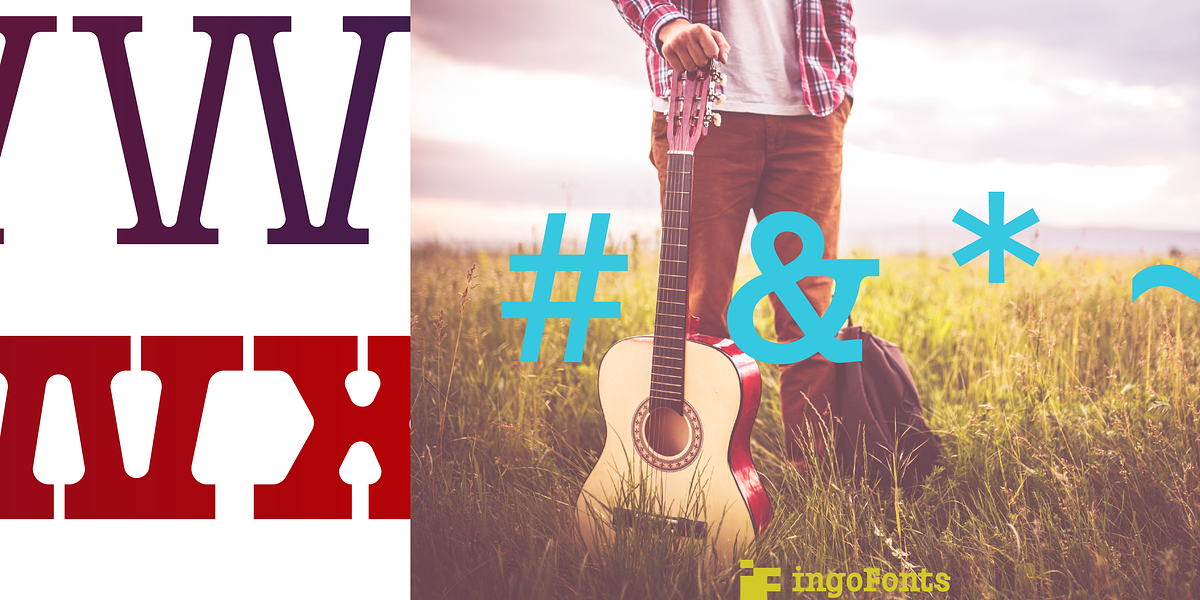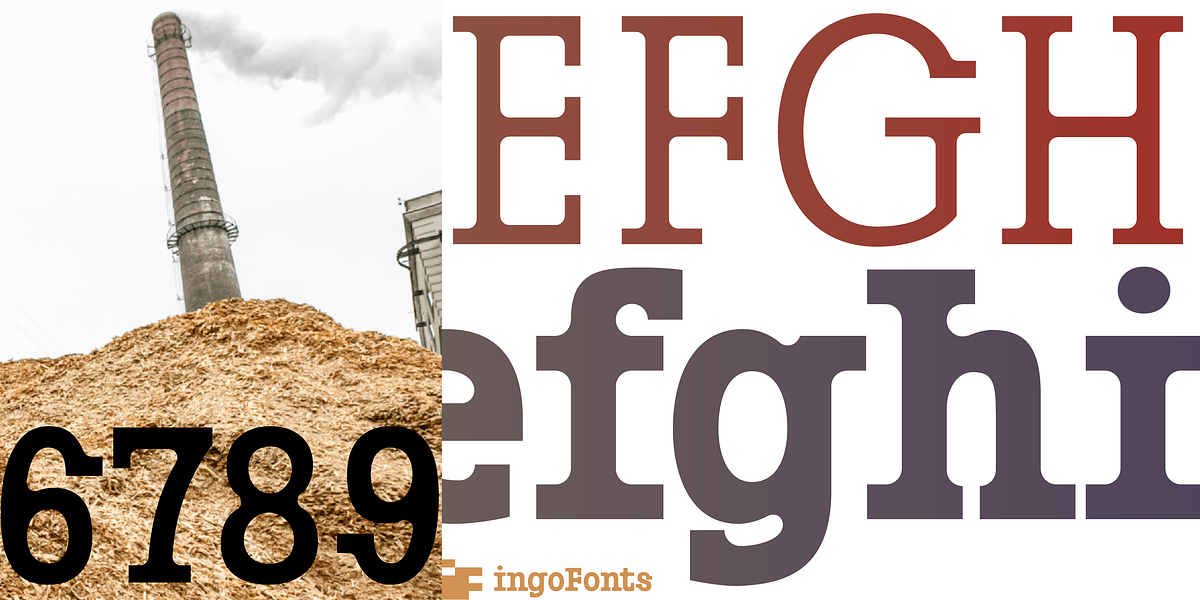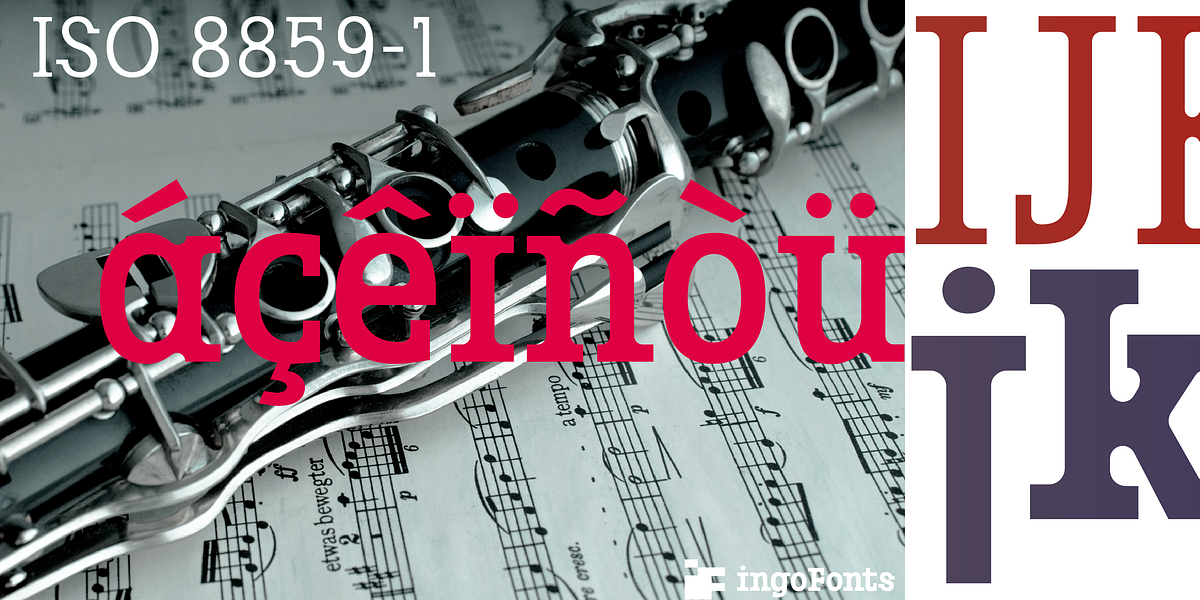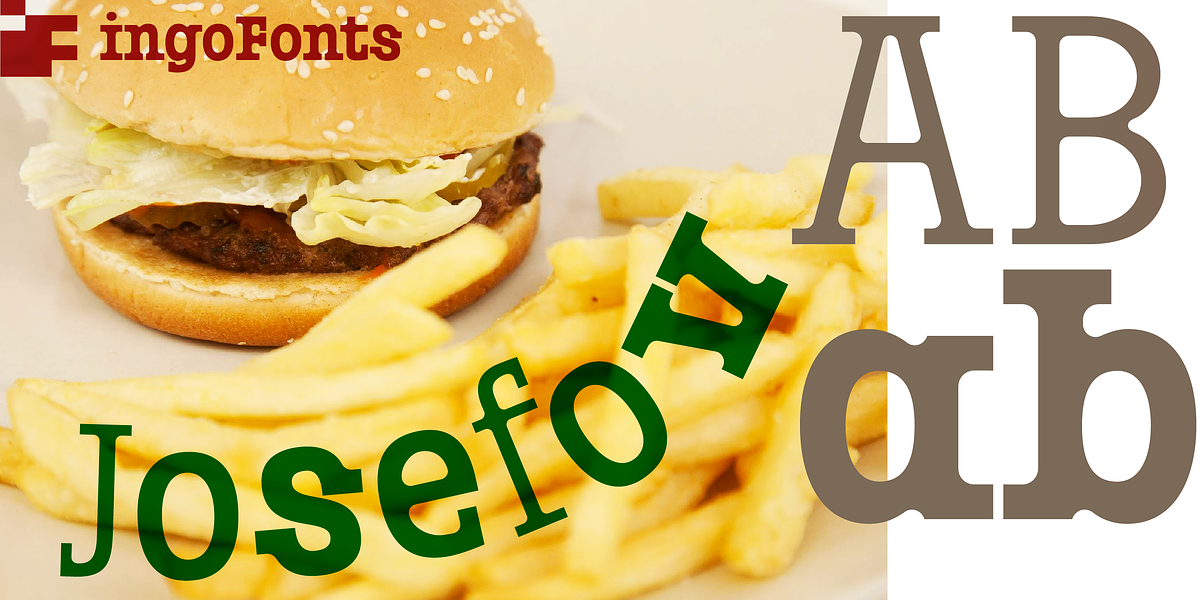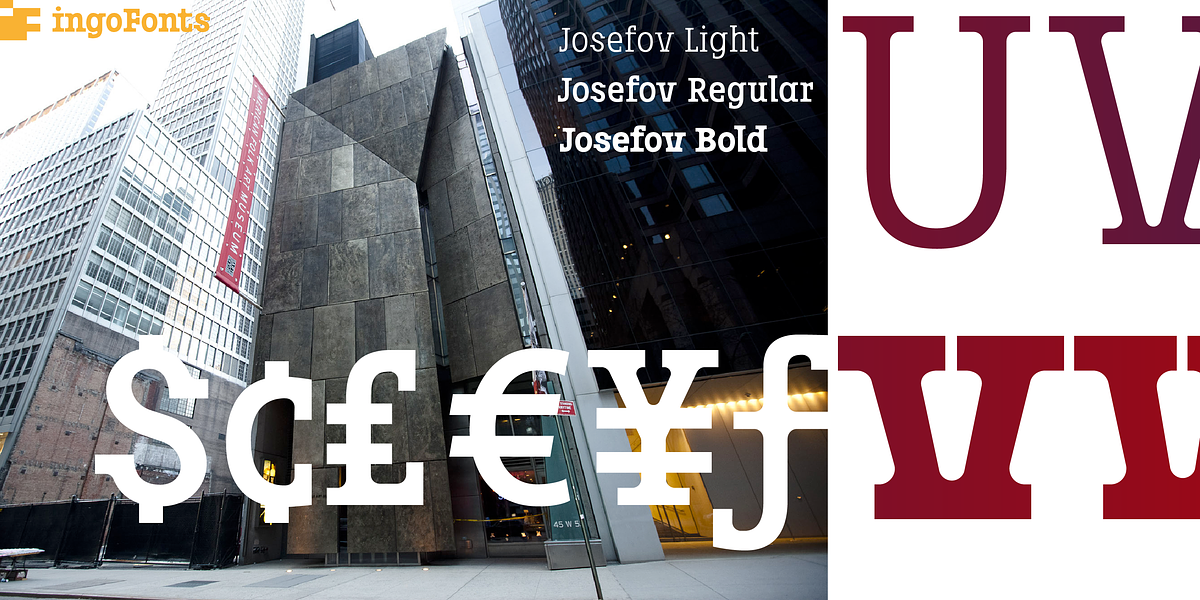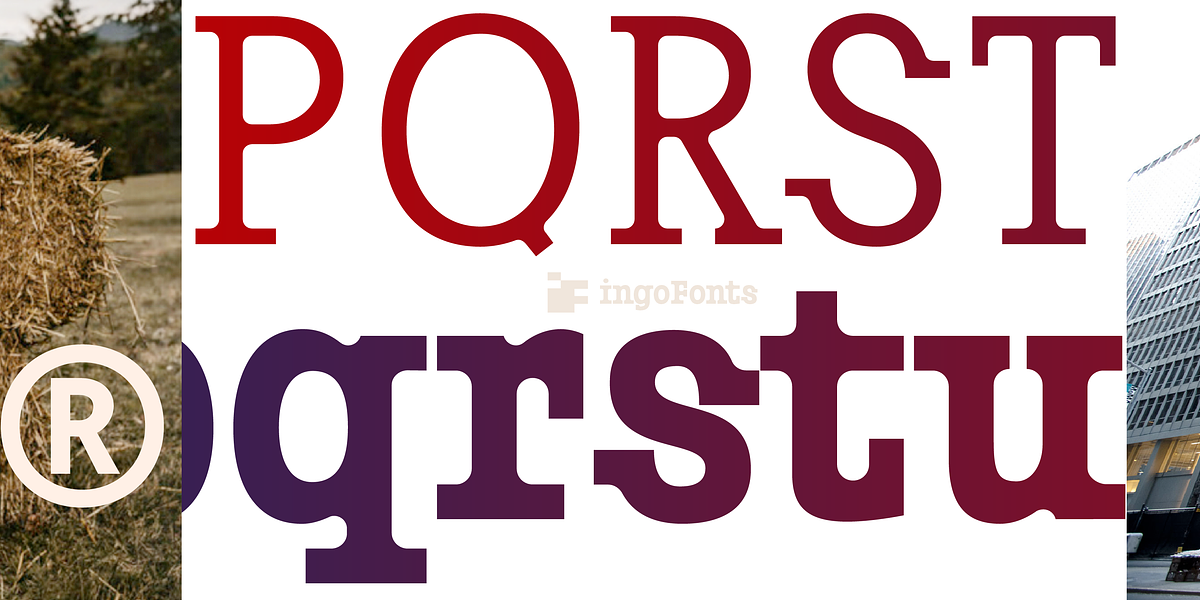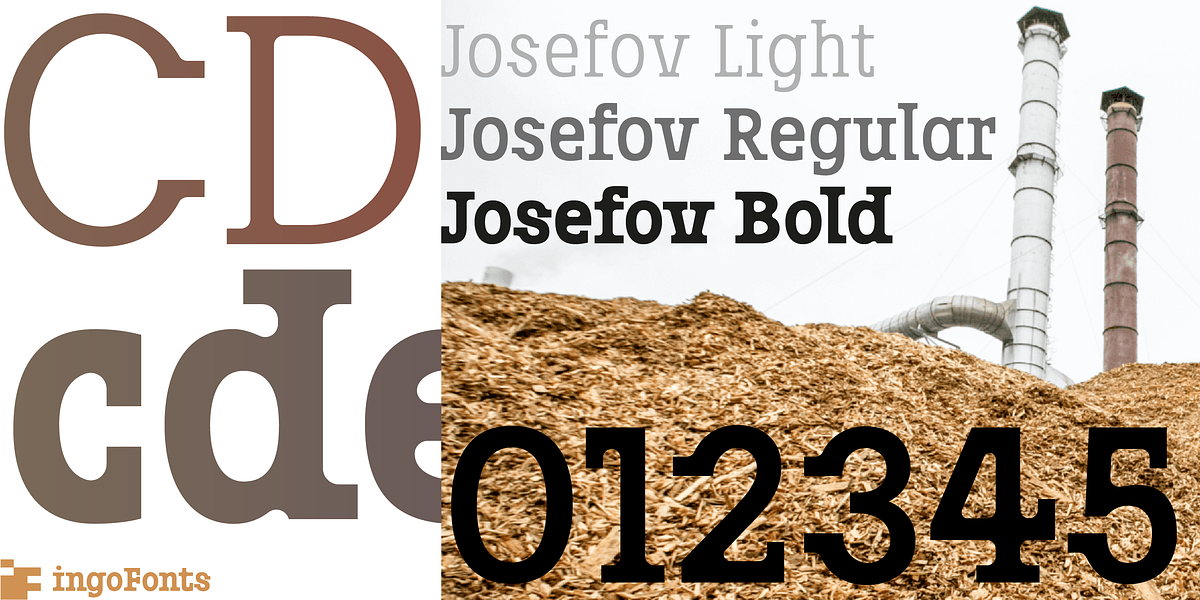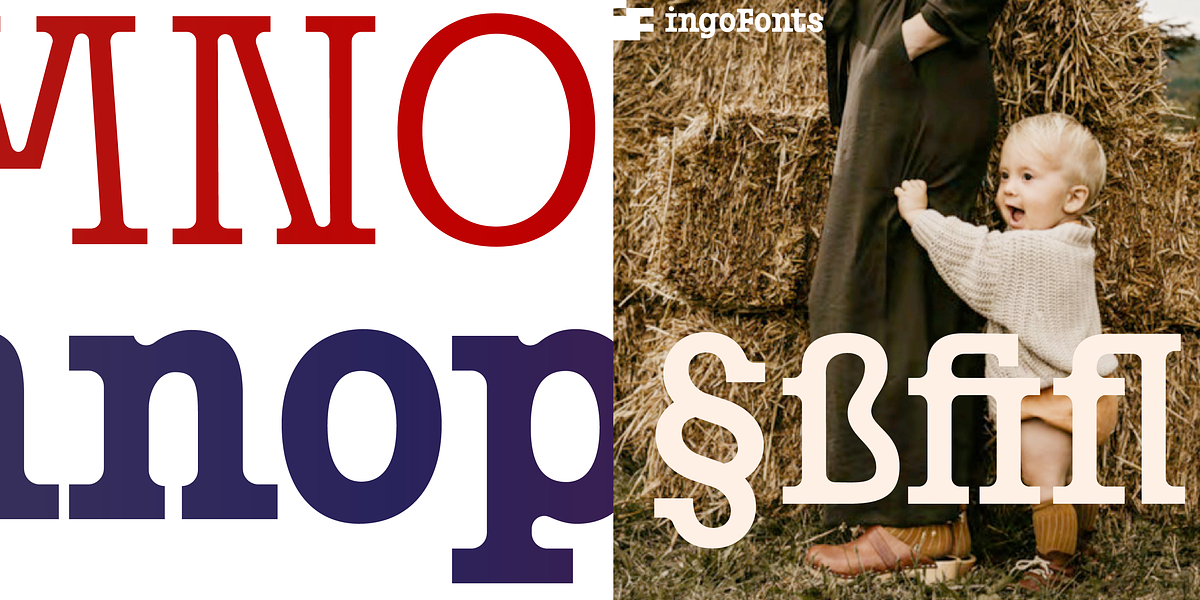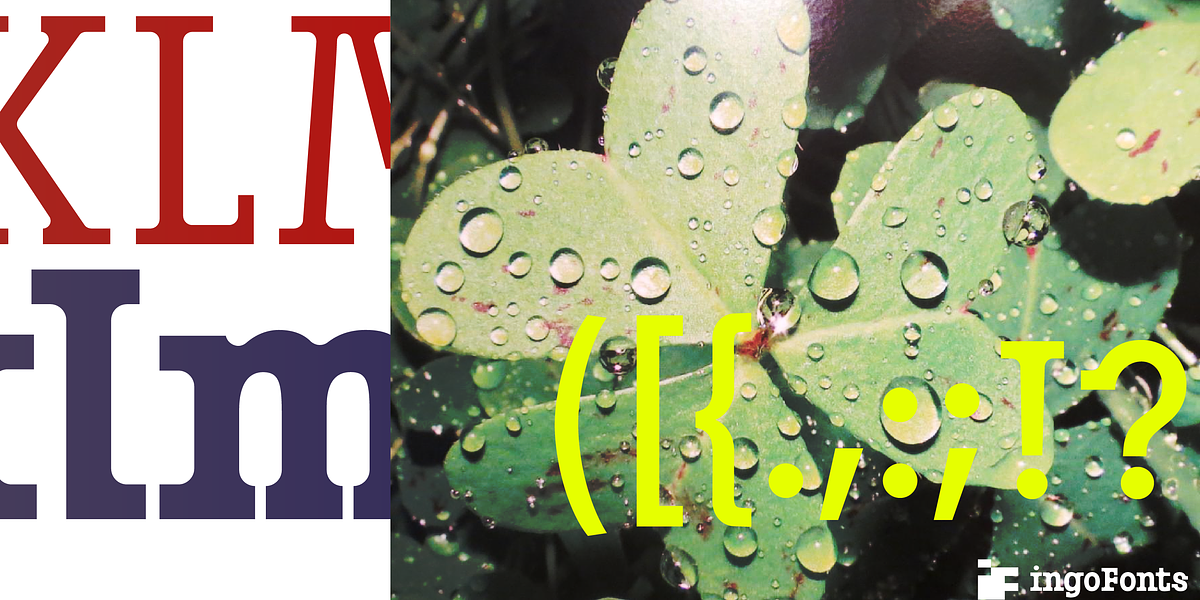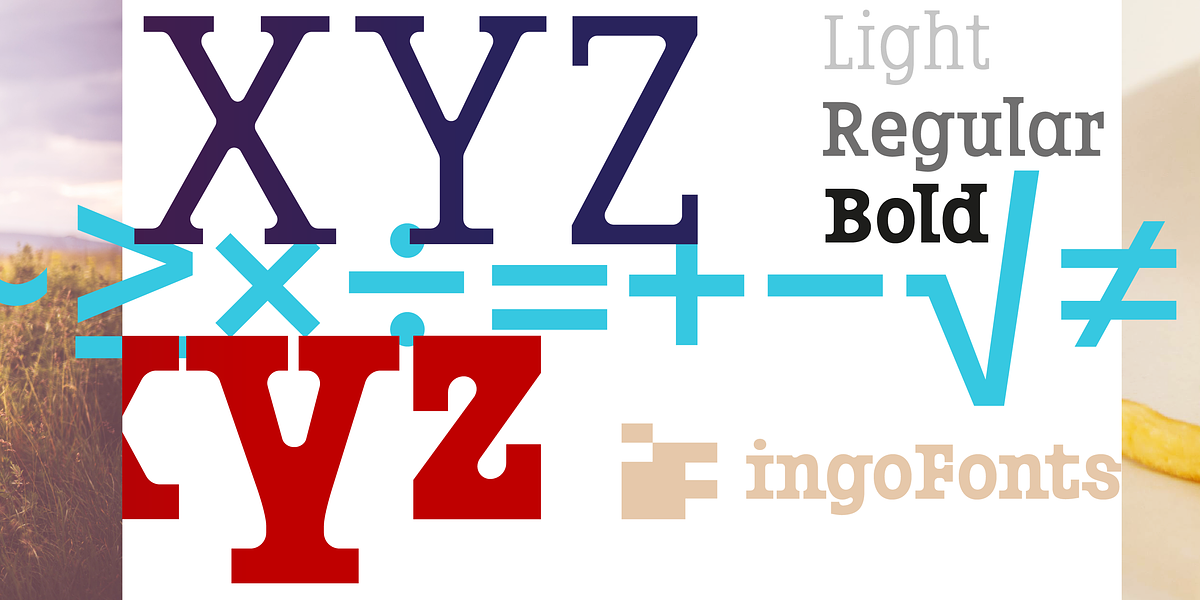
Josefov
JOSEFOV is a humanist slab serif font with a contemporary feel. It is characterized by its narrow width and rounded serifs, which give it a softened and approachable look. The designers drew inspiration from classic slab serif fonts like Clarendon but sought to create a more unique and modern design. JOSEFOV is particularly well-suited for topics related to nature, folklore, culture, music, and nutrition.